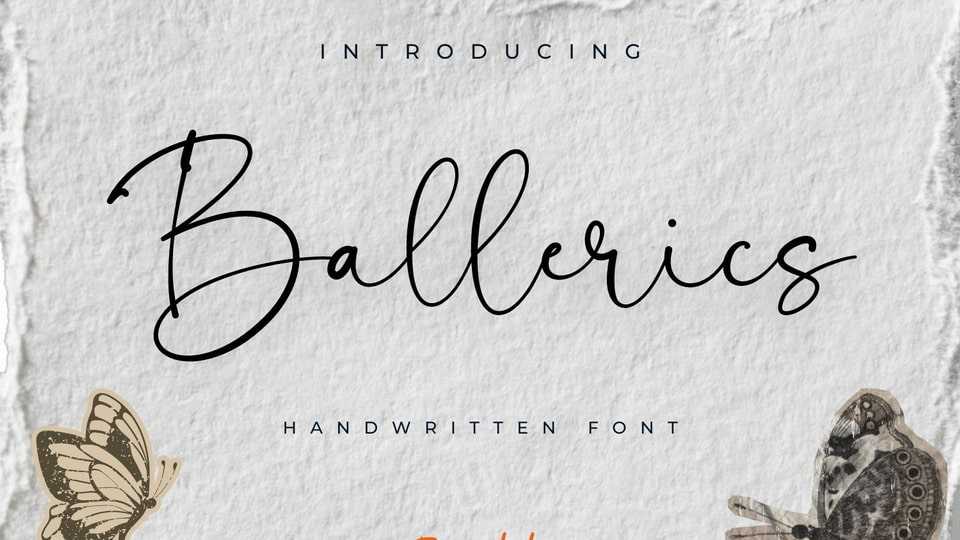
Download Ballerics font, a signature style handwritten typeface, made with a natural flow and precision, perfect for branding, websites, and editorial designs.